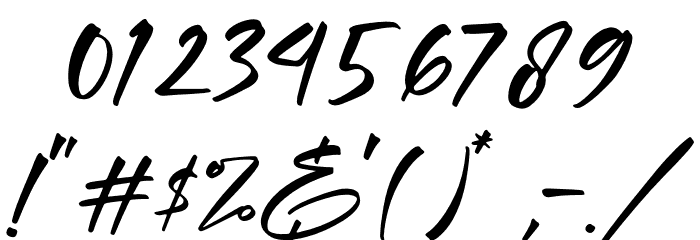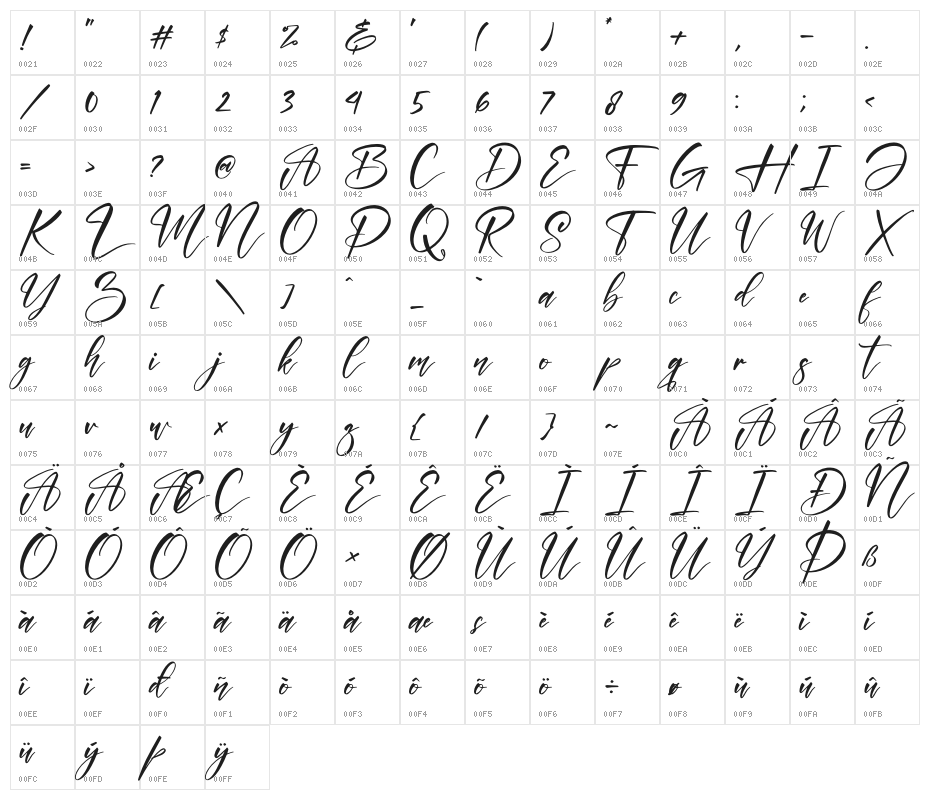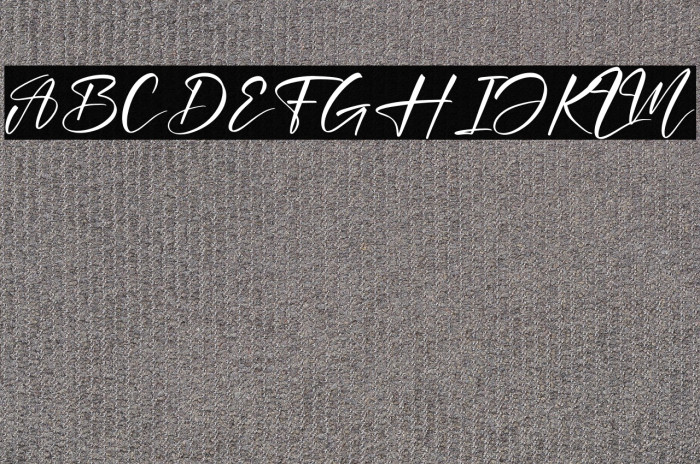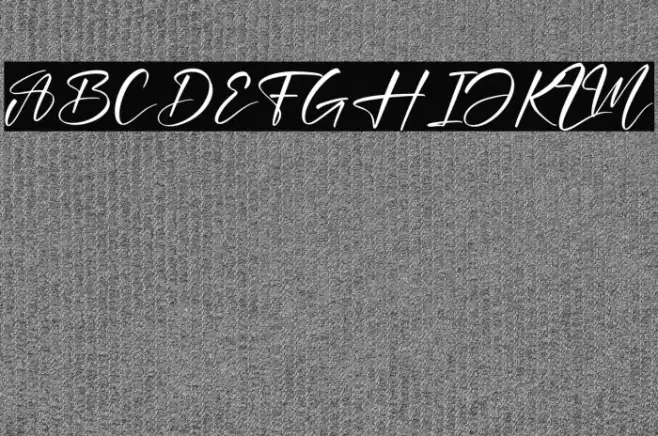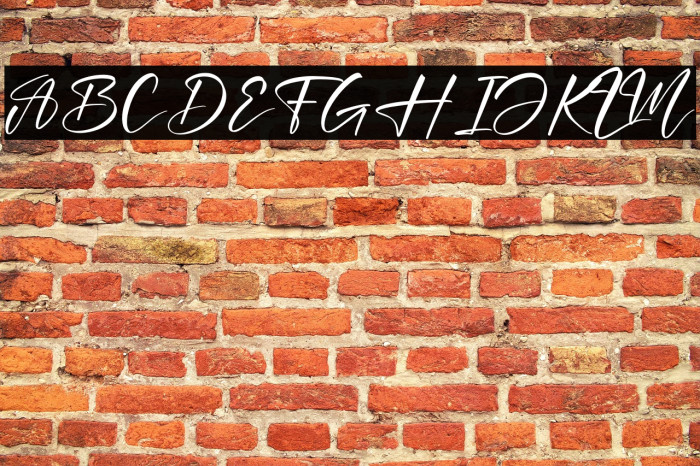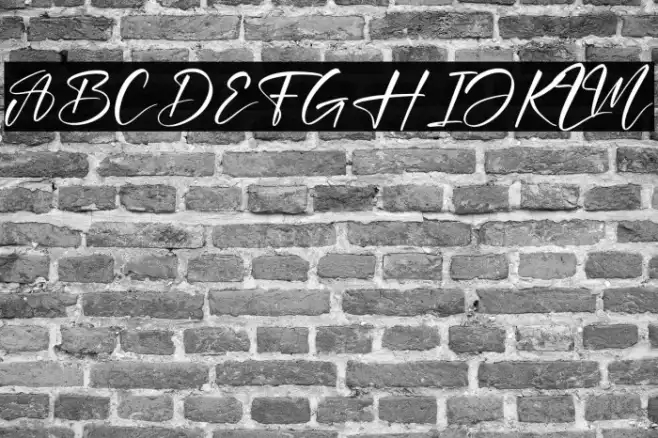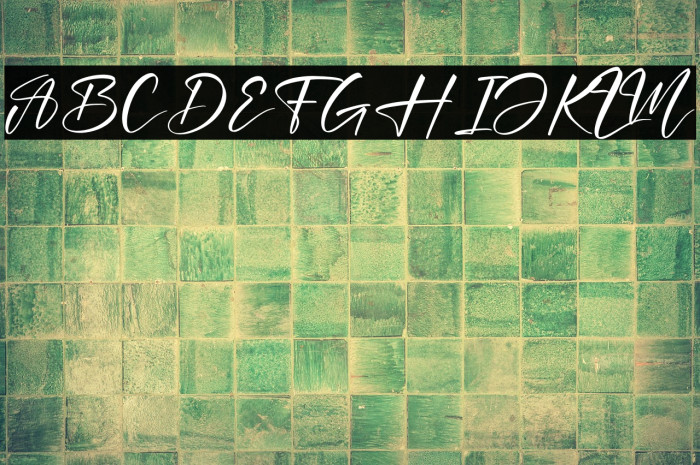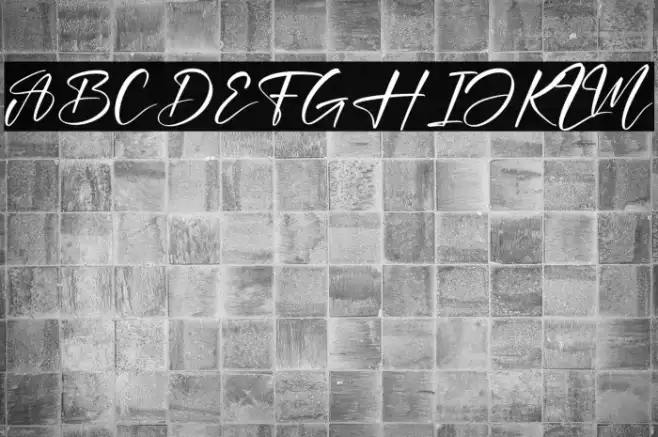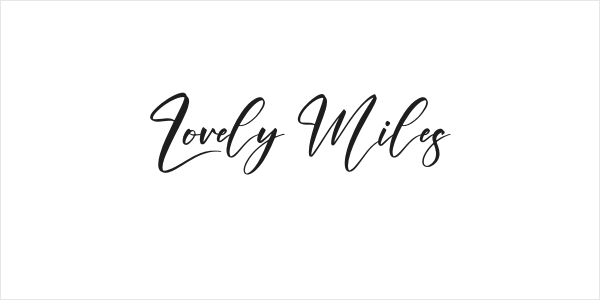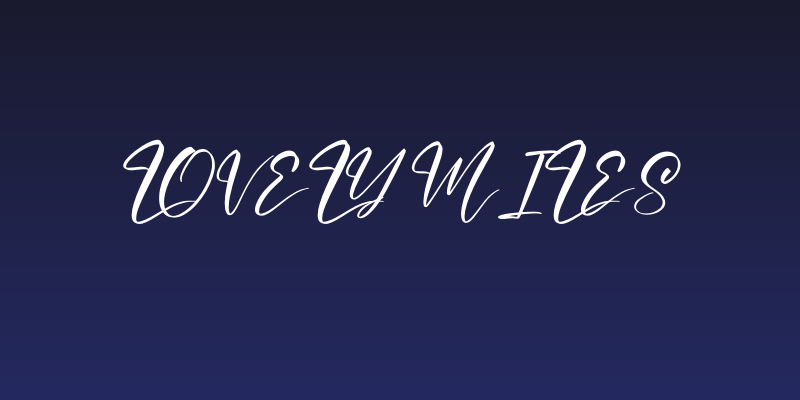
Lovely Miles Font
Lovely Miles Description
This font features a dynamic and fluid script style, characterized by its elegant and flowing letterforms. The uppercase letters exhibit a graceful, cursive design with smooth transitions and a slight slant, giving them a sophisticated appearance. The lowercase letters maintain a similar fluidity, with some characters extending below the baseline, adding to the font's charm. The numerals are bold and slightly italicized, complementing the overall script style. Special characters are creatively integrated, maintaining the font's cohesive look. This font's expressive nature makes it suitable for projects that require a personal and artistic touch.